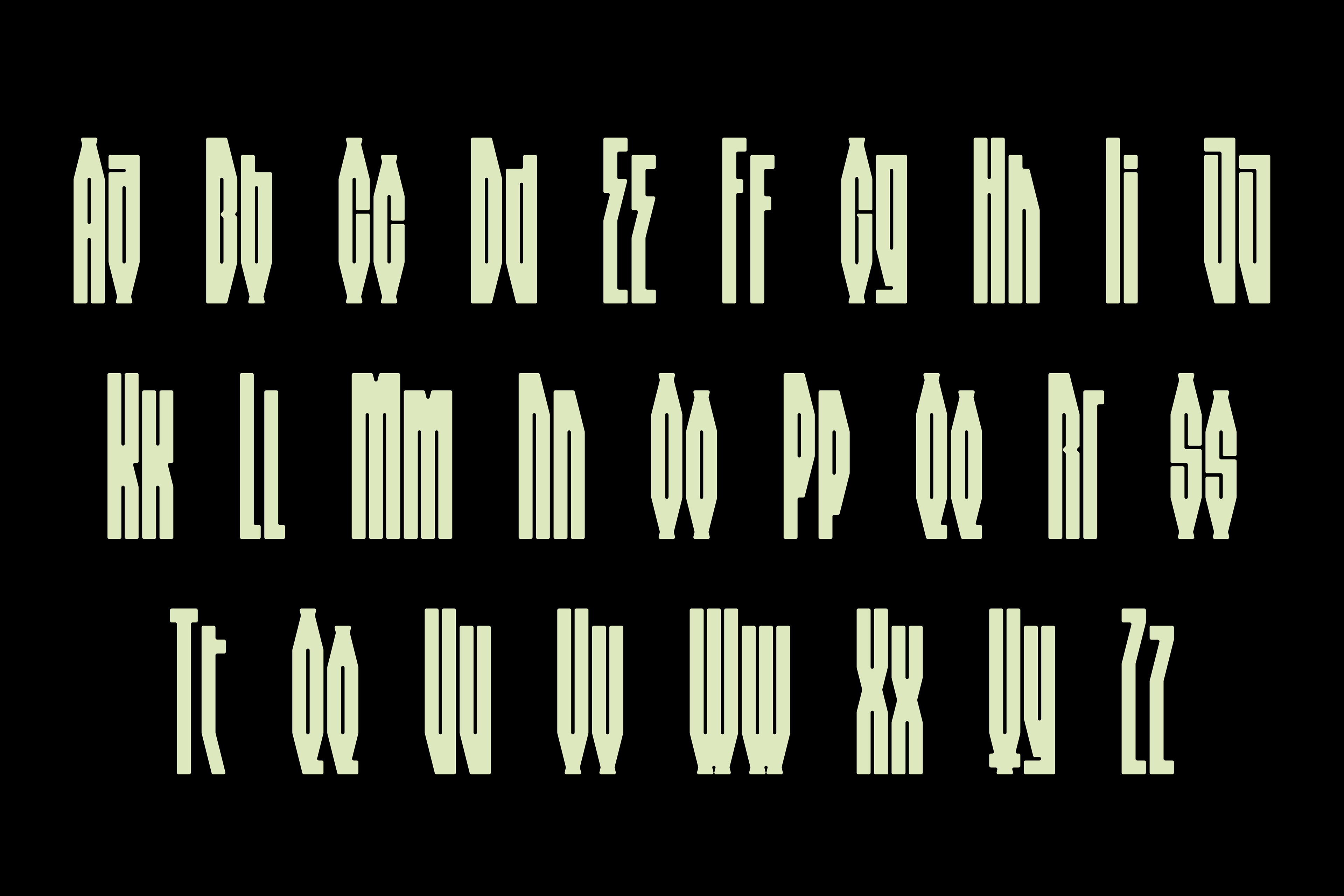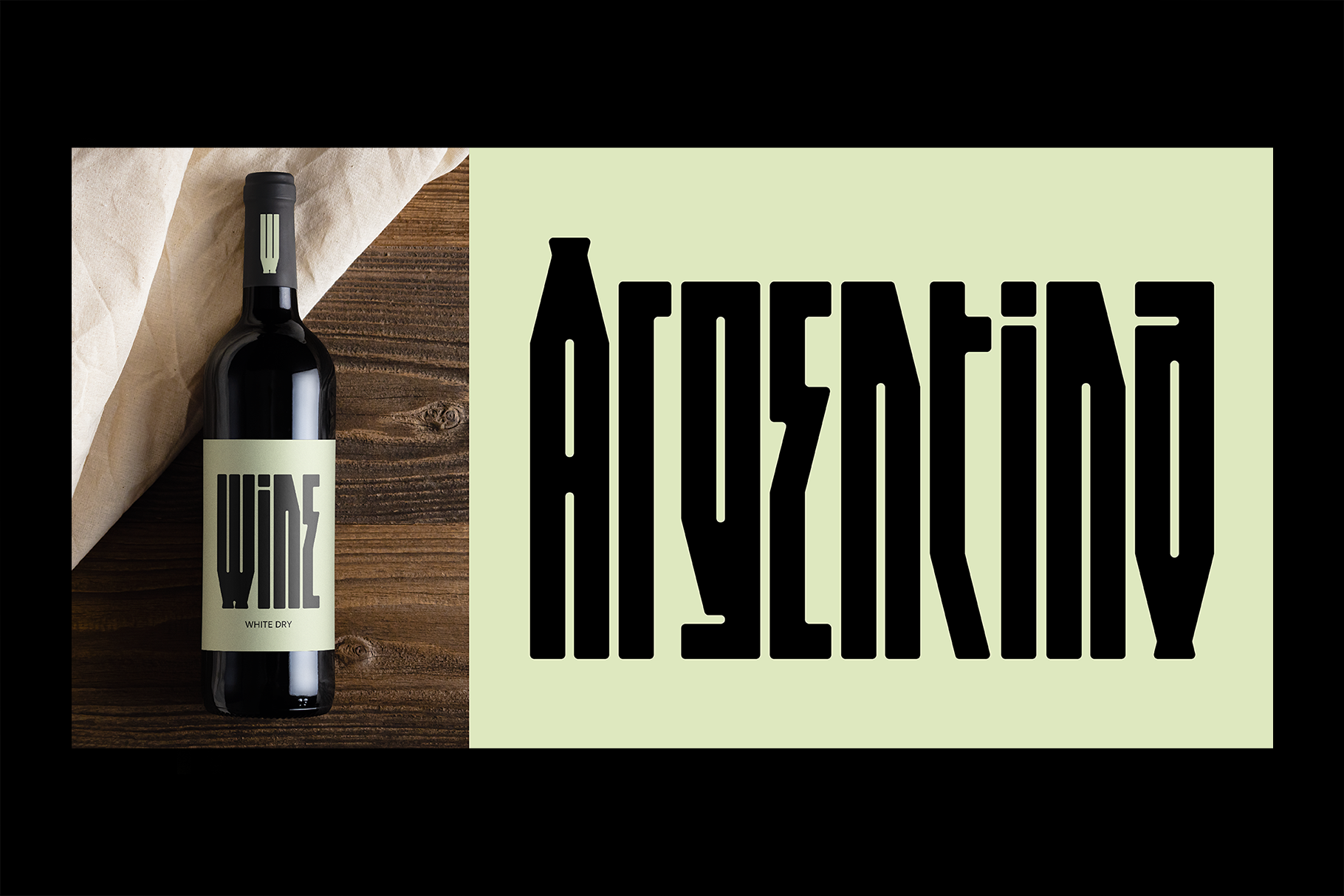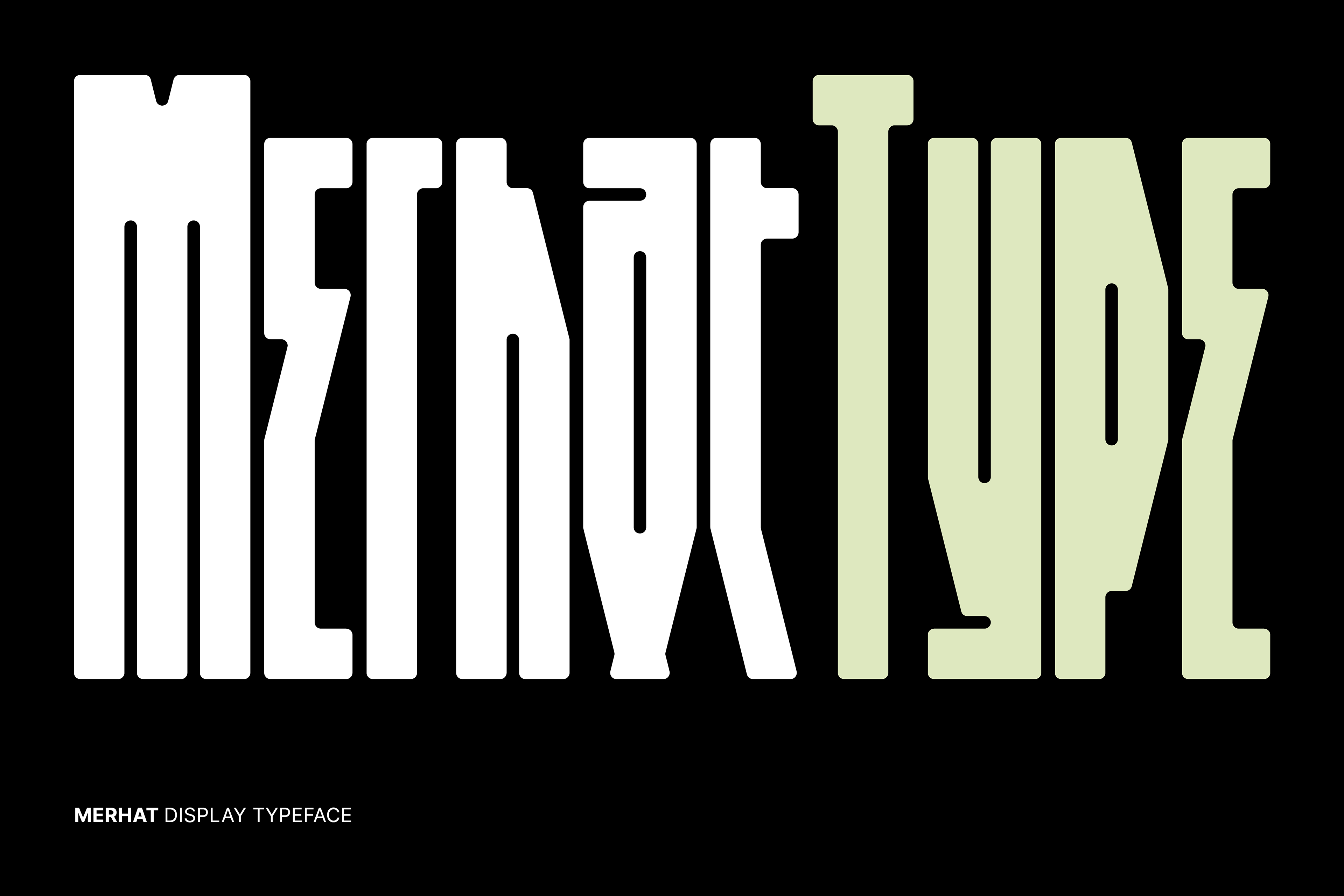
Merhat is a modern and experimental font, distinguished by its geometric and condensed structure
with slightly rounded corners. Optimally simplified with distinctive accents.
The font is expressive and unusual. perfect for graphic designs with an intriguing style.